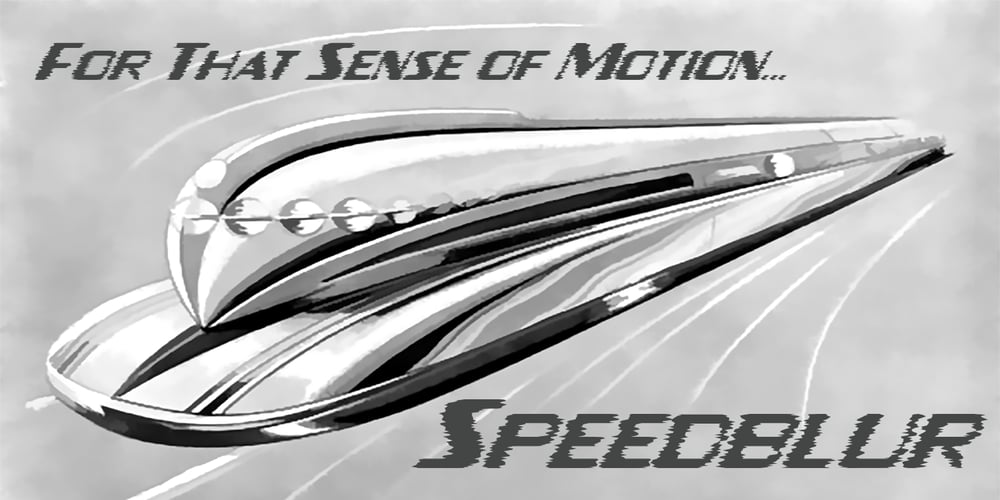
Speedblur
Speedblur font
Speedblur Font Family was designed by Paul James Lloyd and published by Greater Albion Typefounders. Speedblur contains 1 styles and family package options. Speedblur – the name says it all really! Want a display typeface that suggests speed and motion? Well this is it. Ideal for all those retro-future designs, anything streamlined or the boy (or girl) racer in all of us!